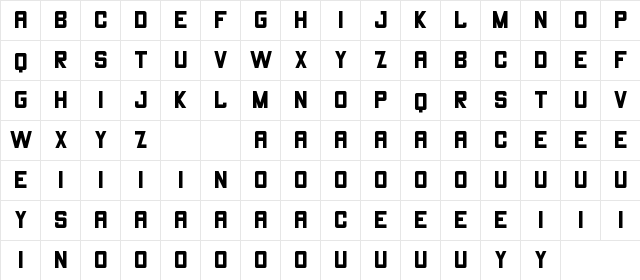
THECHAMP DEMO Regular Font Preview
THECHAMP DEMO Regular
THECHAMP DEMO Regular Font Details
| Foundry | Edric Studio |
| Designer | M Nouval |
Design Context for THECHAMP DEMO Typeface
THECHAMP DEMO takes a measured approach to typography — its balanced proportions and neutral character make it a reliable workhorse for both digital and print work.